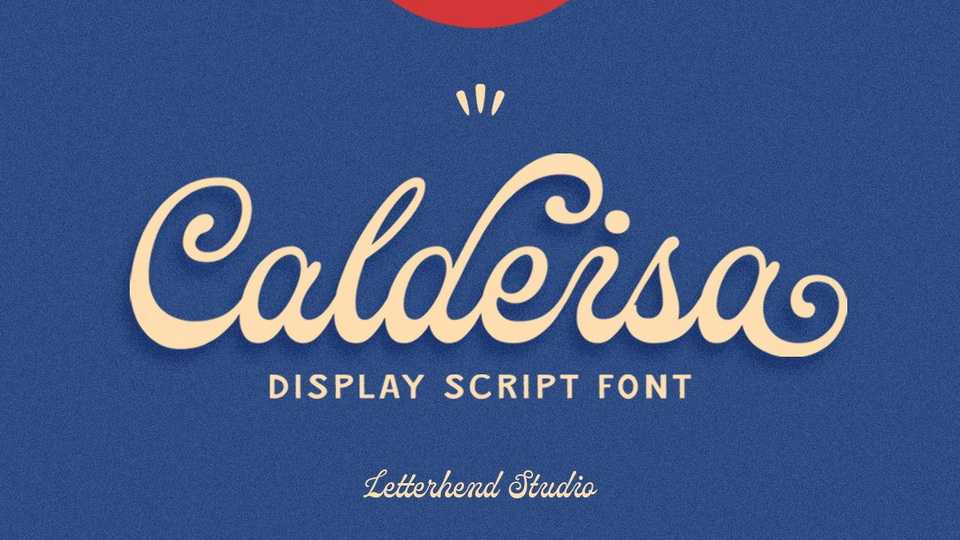
Download Caldeisa font, a display script typeface with unique and classy feel. Caldeisa font is perfect for logo, headline, signage, lettering or any type of advertising purpose.